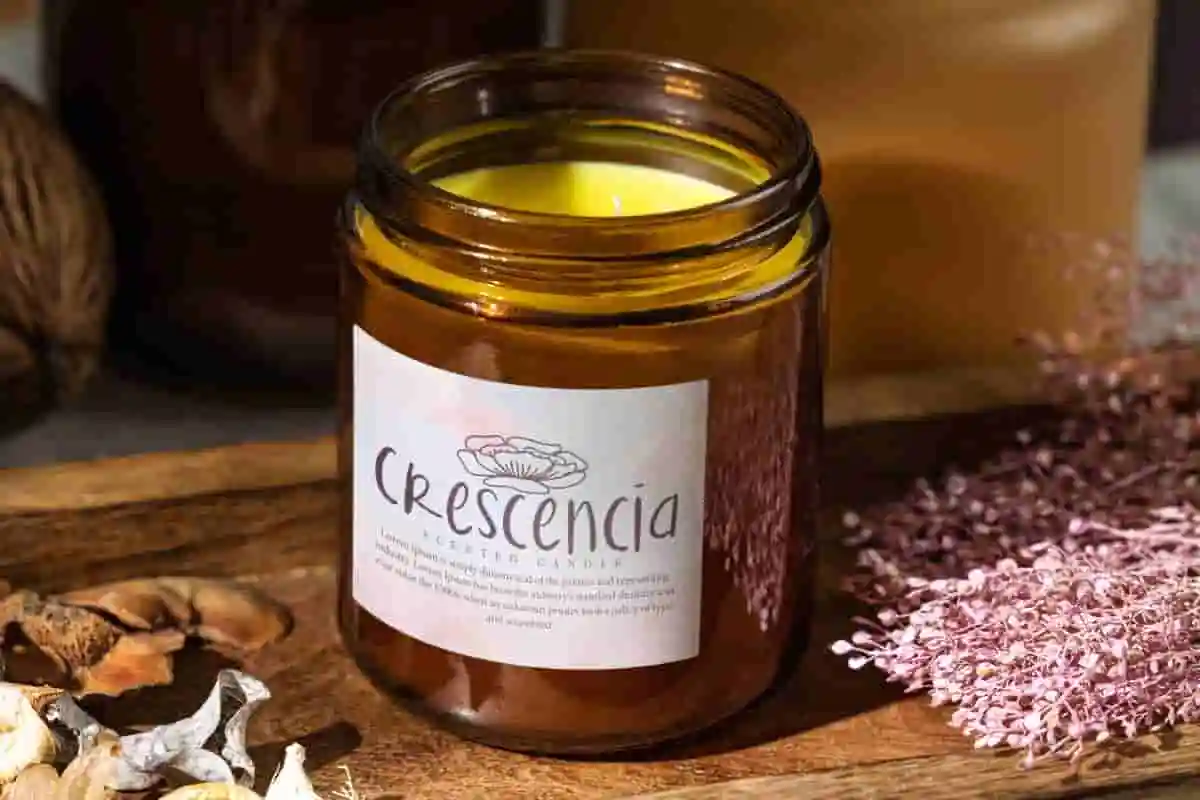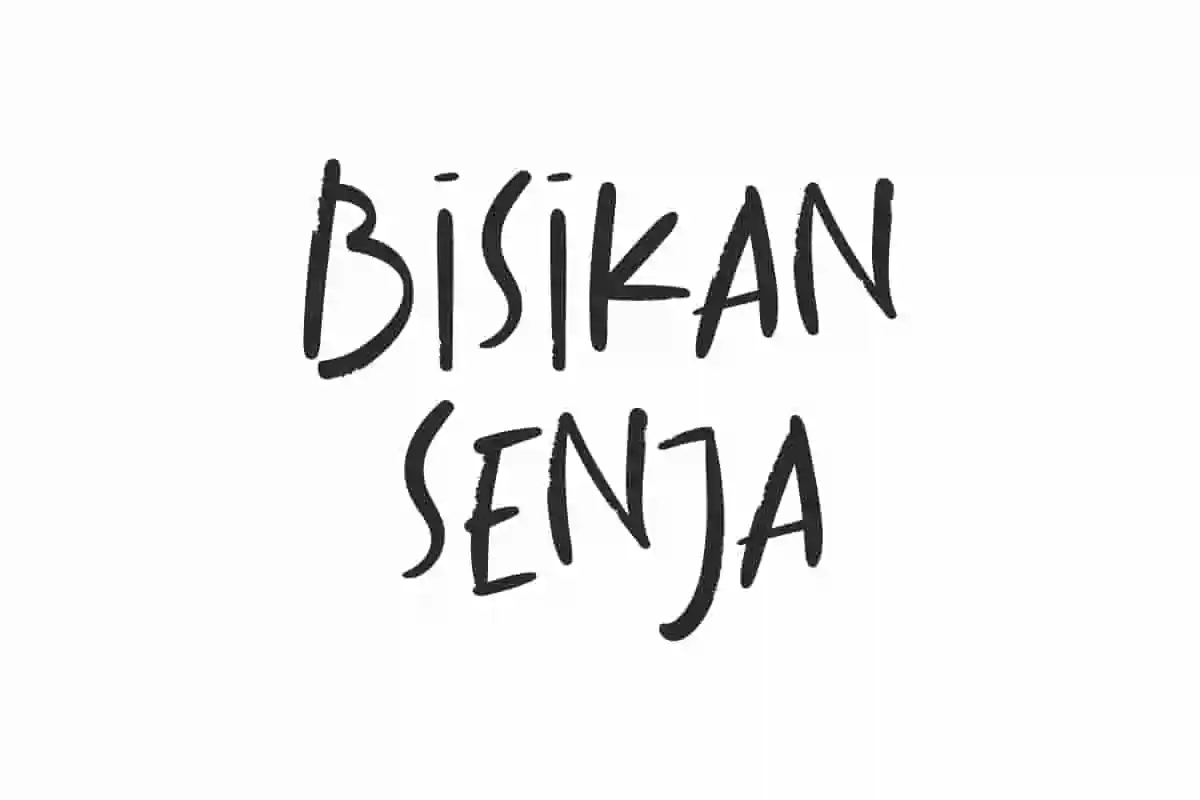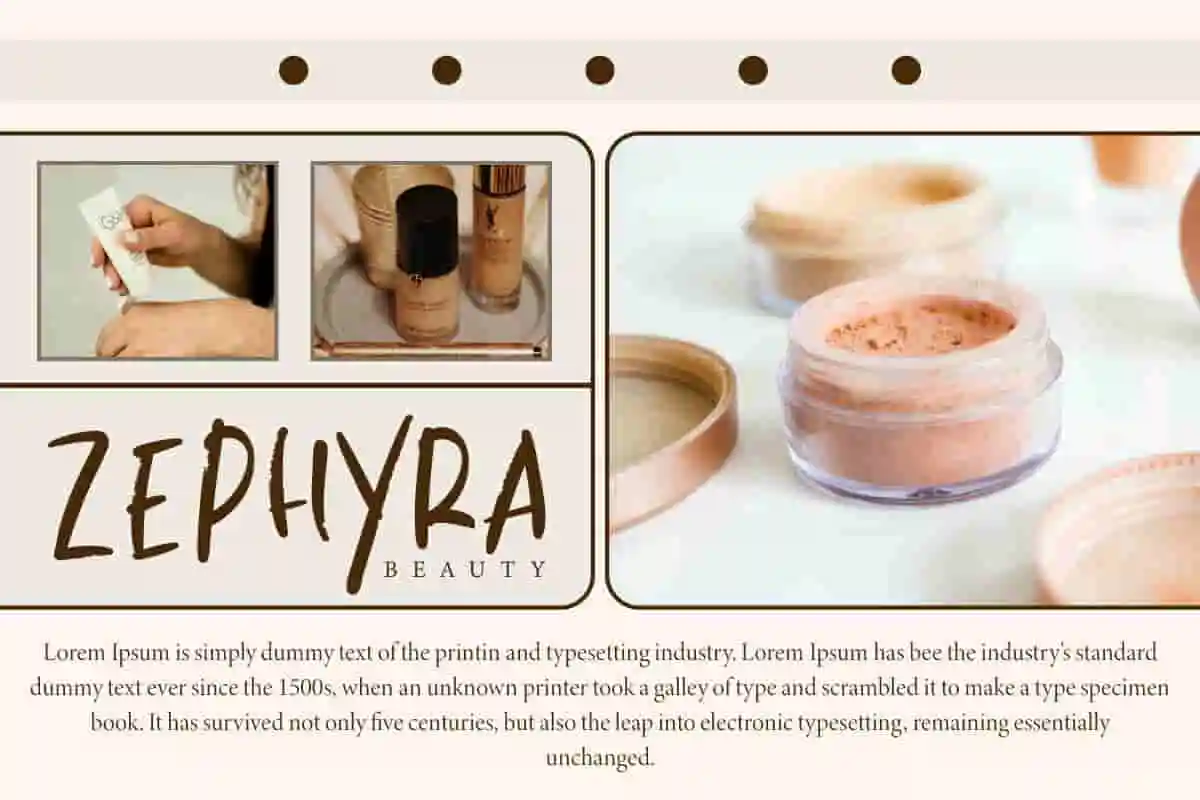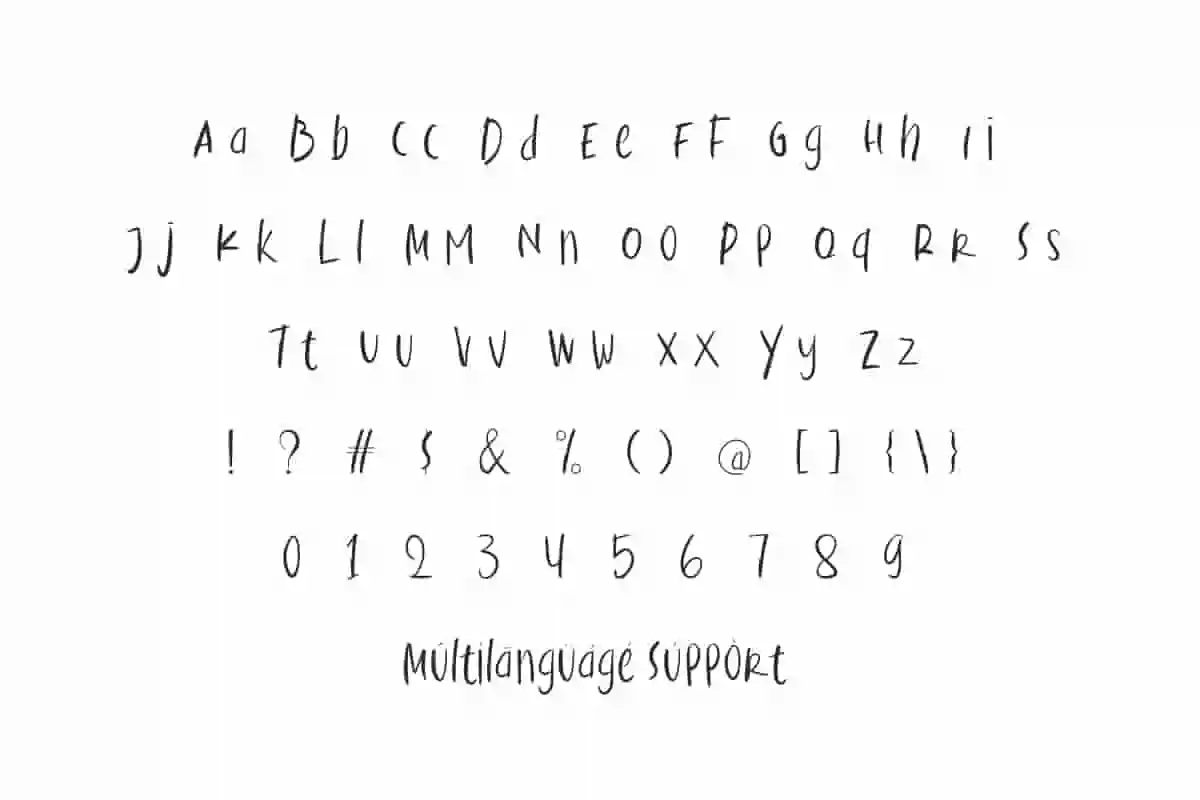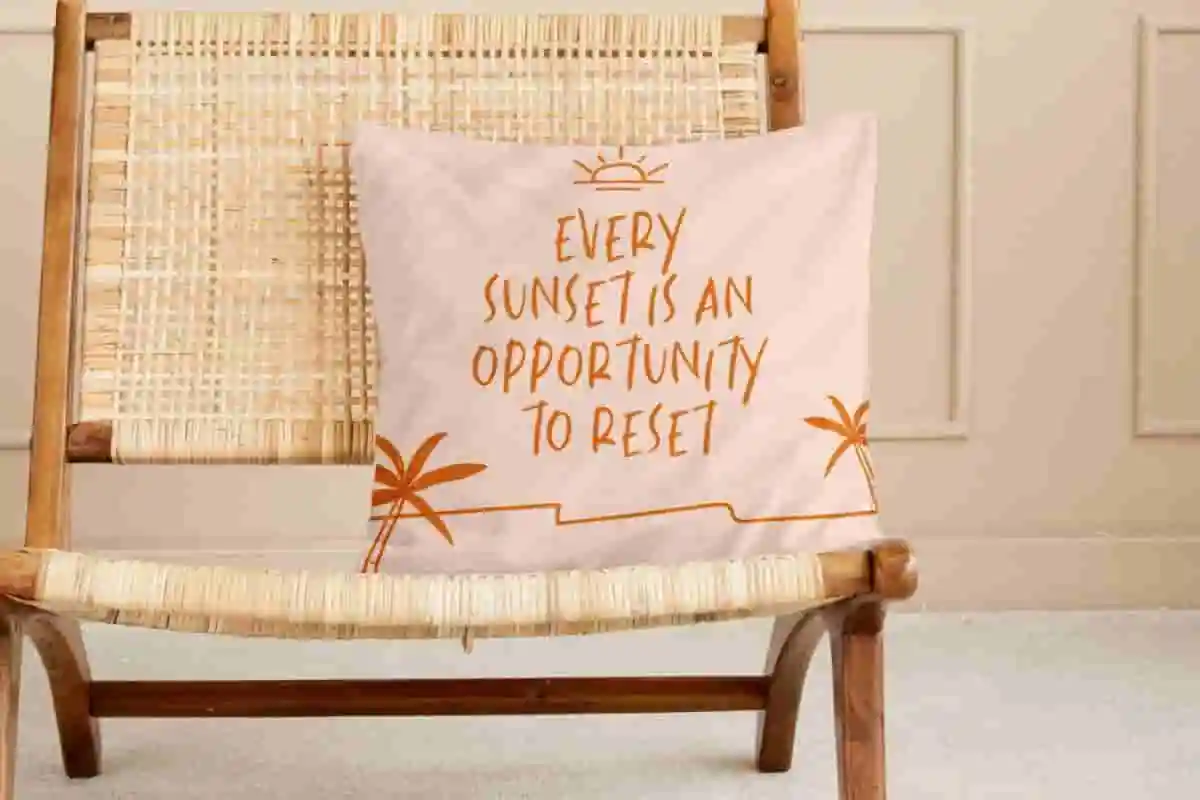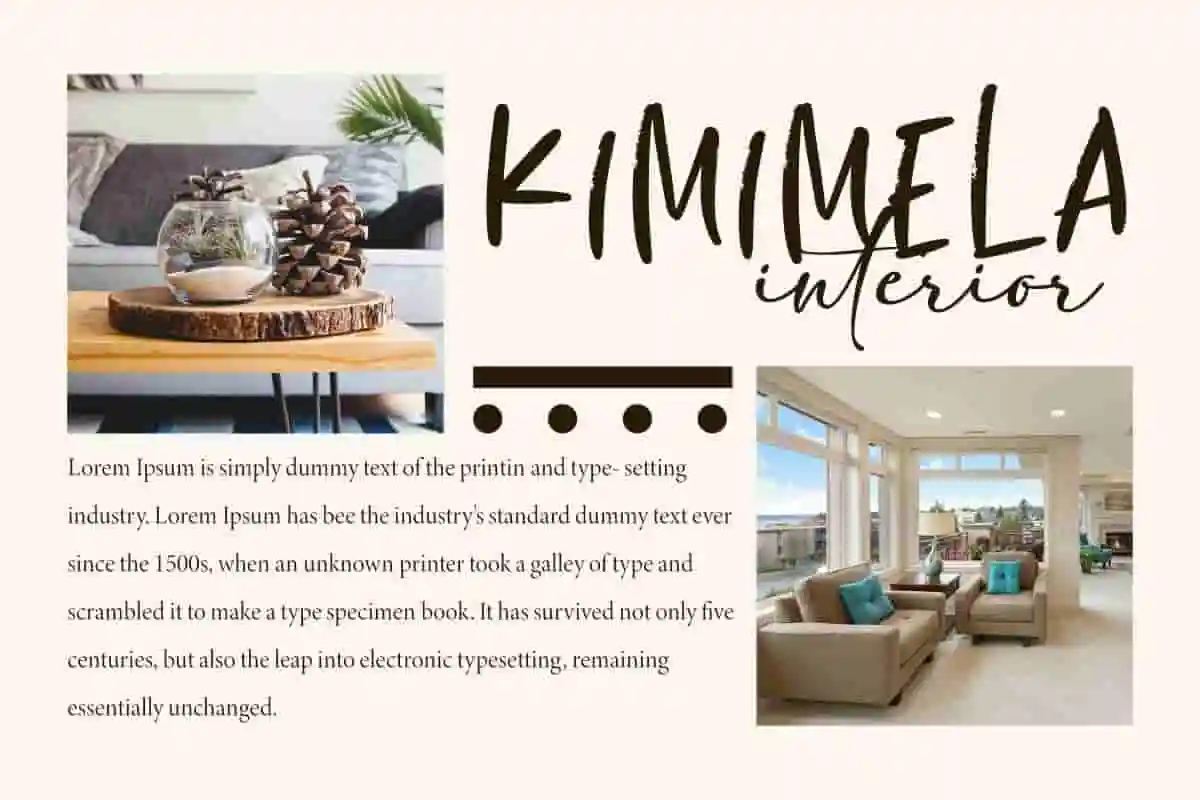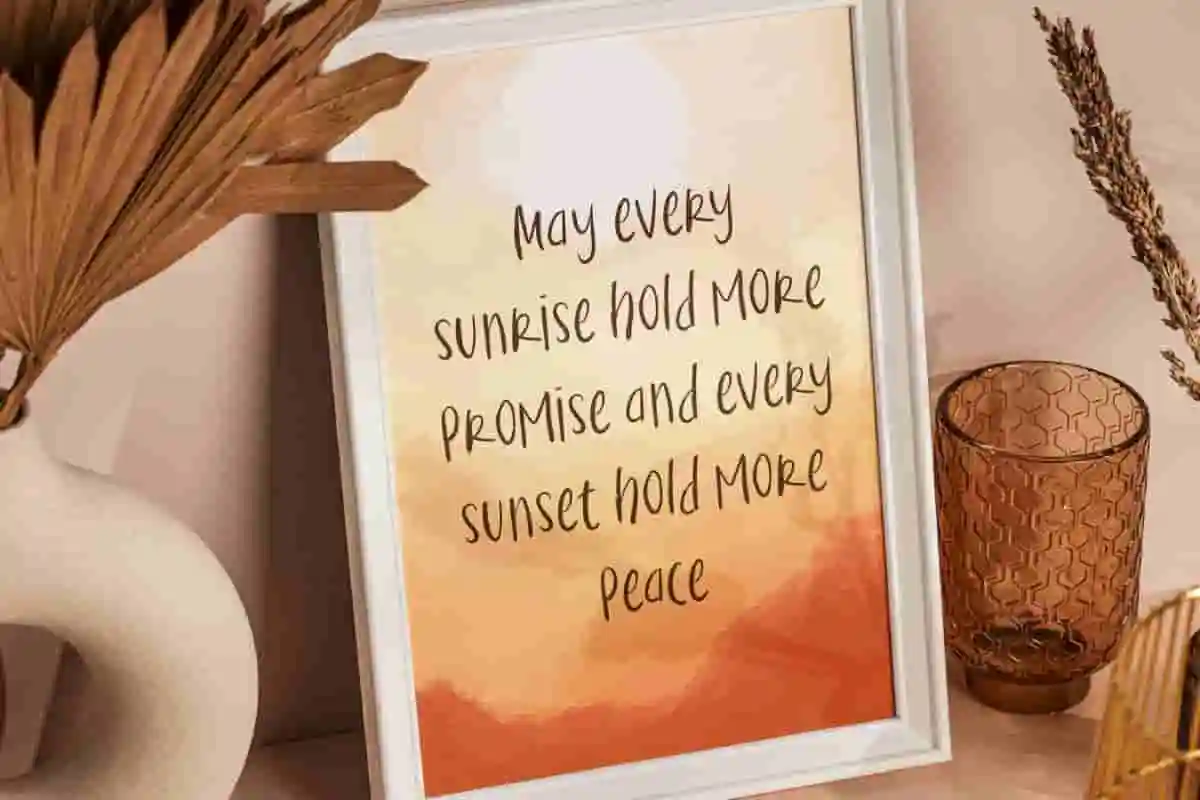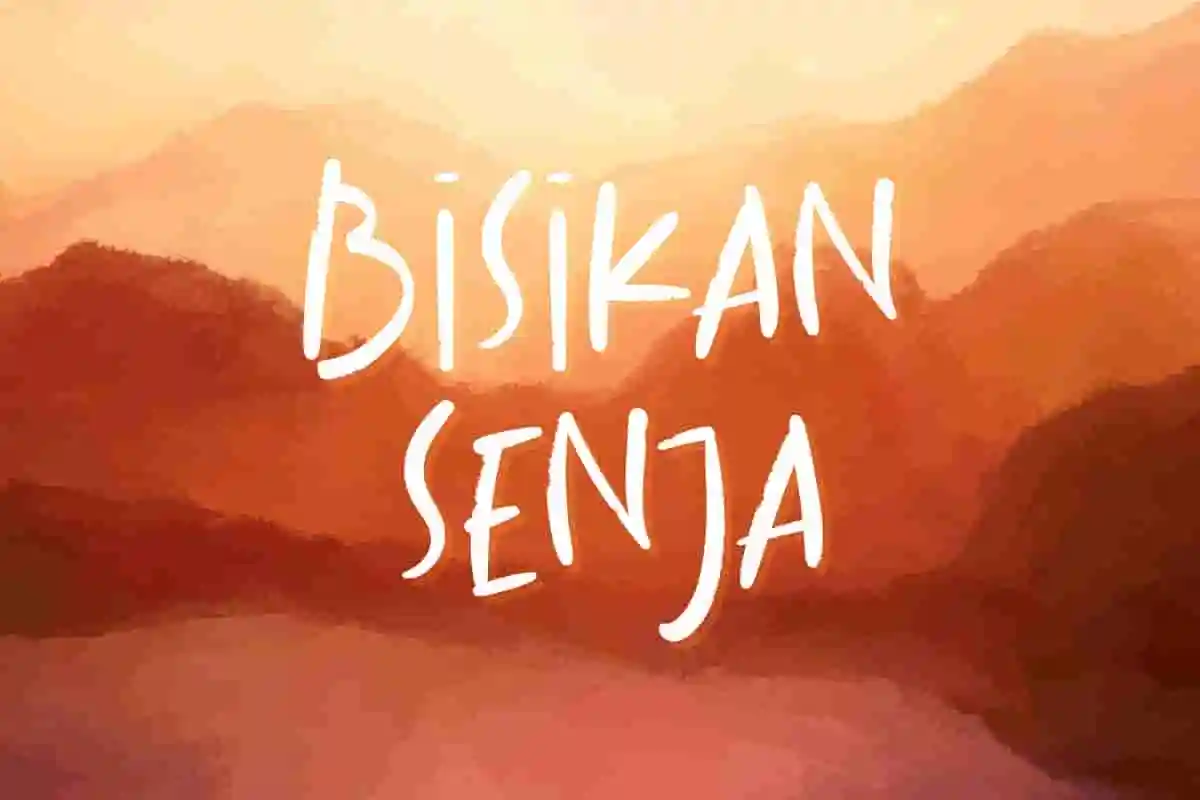
Bisikan Senja Font is a casual brush handwriting font with a touch of warming style. With it’s flexibility it will take your work to the next level.
Bisikan Senja Font is a casual brush handwriting font with a touch of warming style. An organic aesthetic blend of fonts with a warm touch. Perfect for apps, blogs, greeting cards, headers, invitation, mockup, packaging, quotes, screen printing, stationery, sticker, template, titles, watermarks, website, etc.
Bisikan Senja Font comes with a full set of Uppercase and Lowercase Basic Characters, Number, Punctuation, Symbol. This casual brush handwriting style is perfect for accessories and gifts, beauty product, bridal boutique, cosmetic, fashion, florist, graphic design, illustration, photography, spa salon, writer, etc.